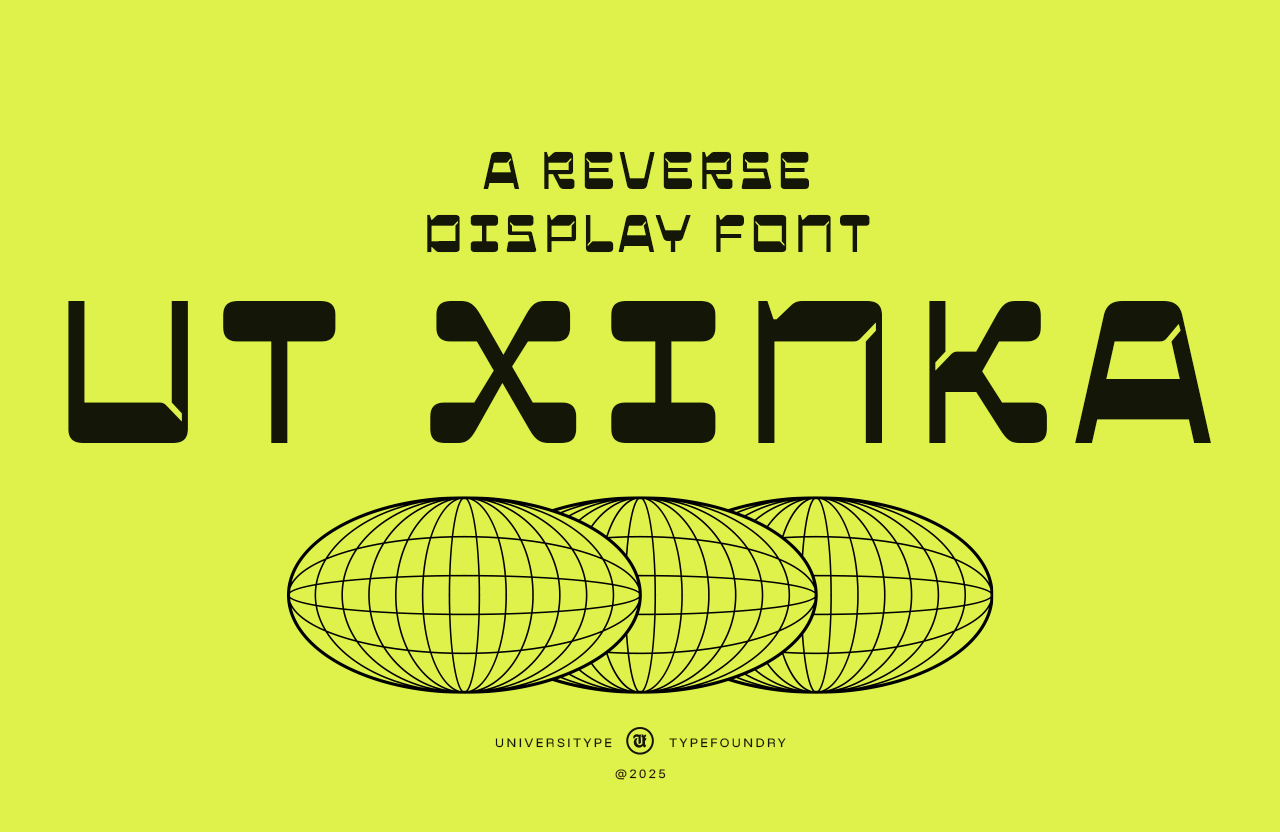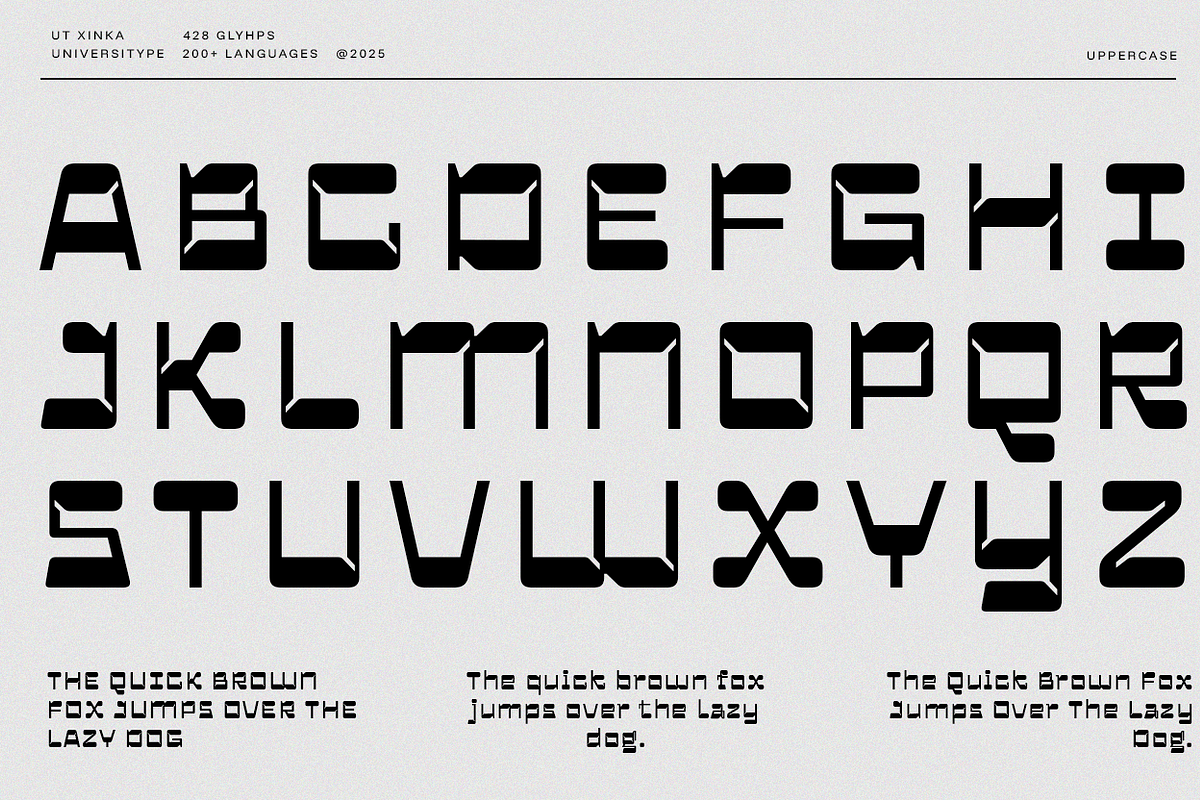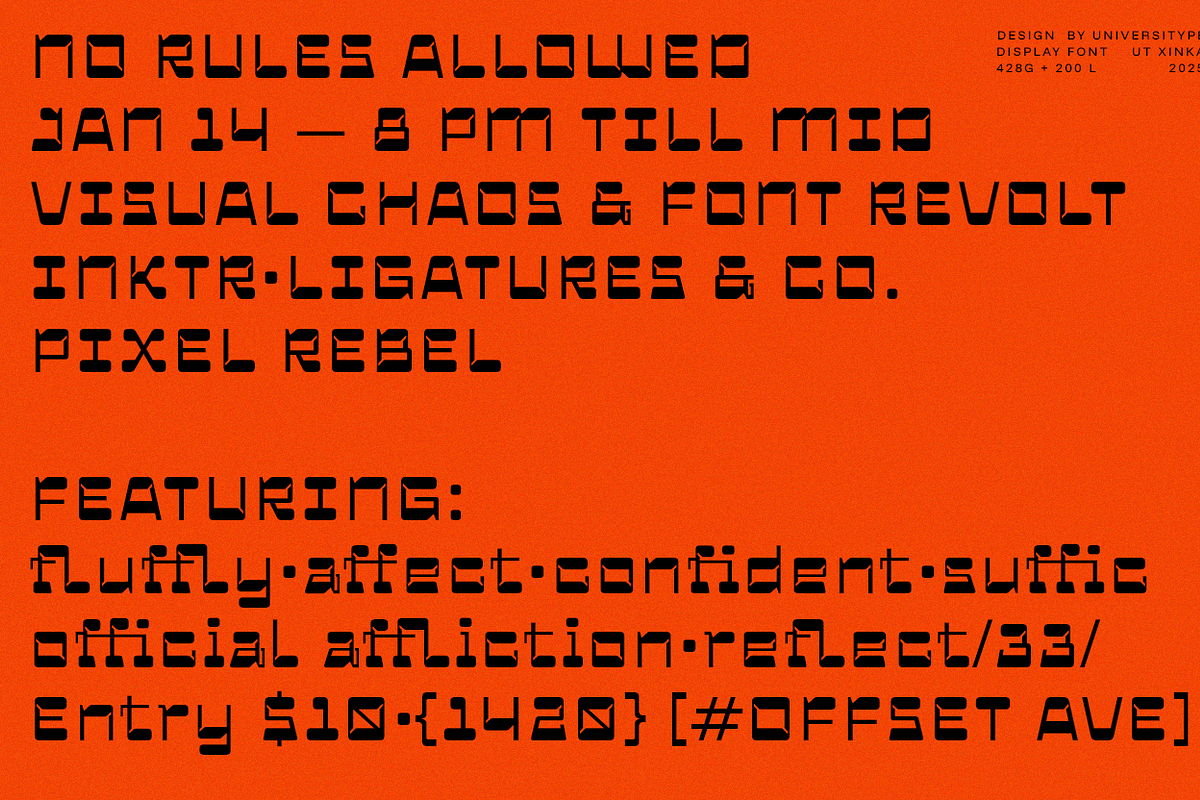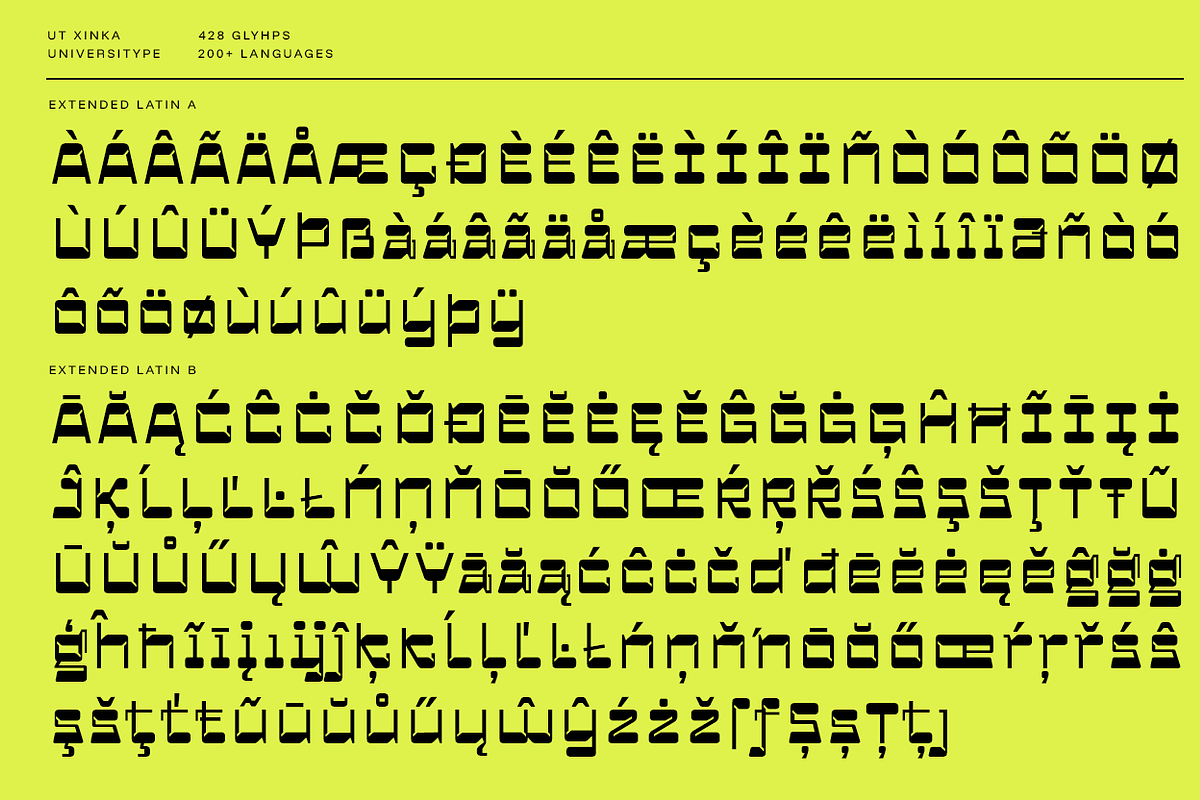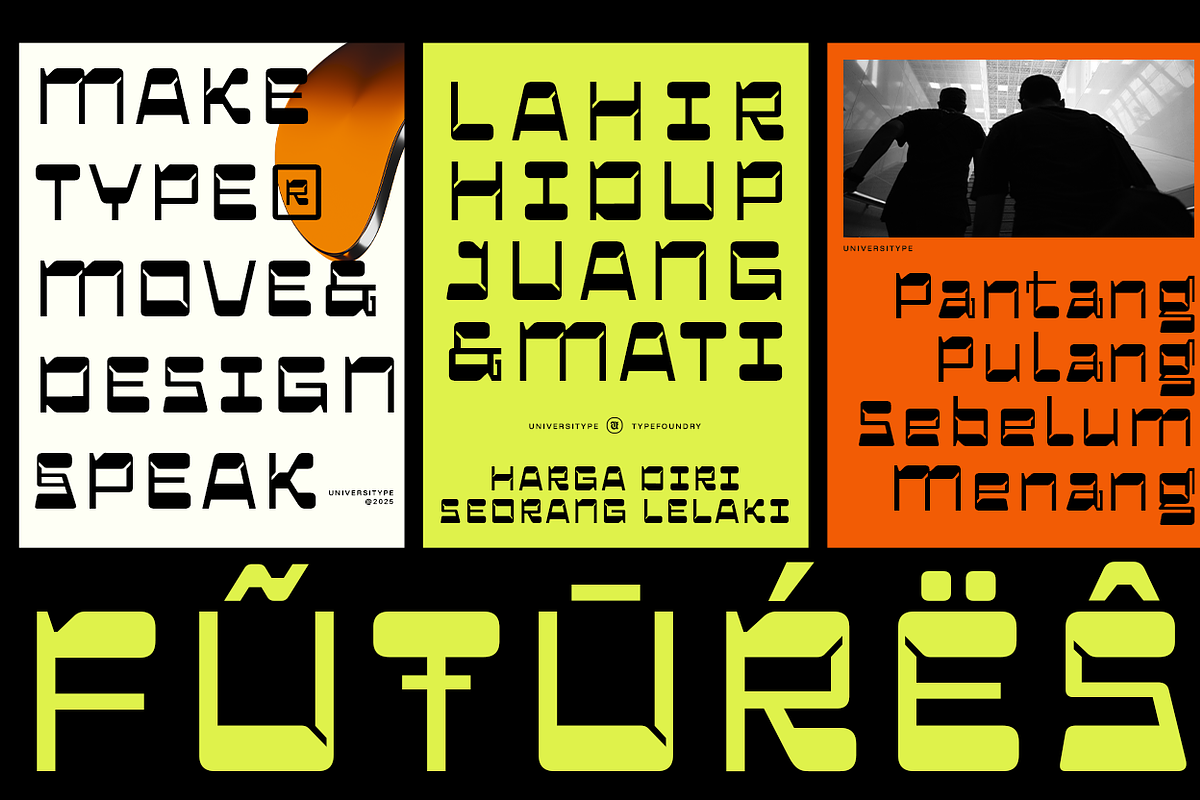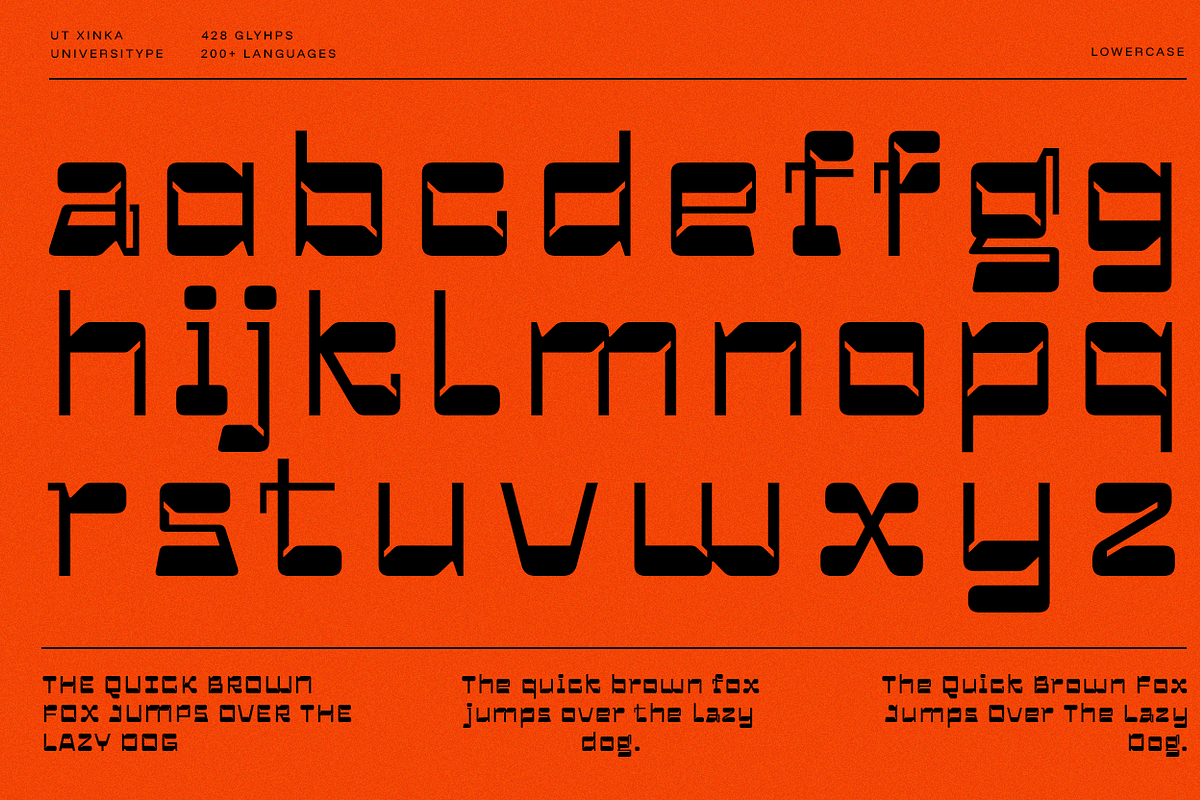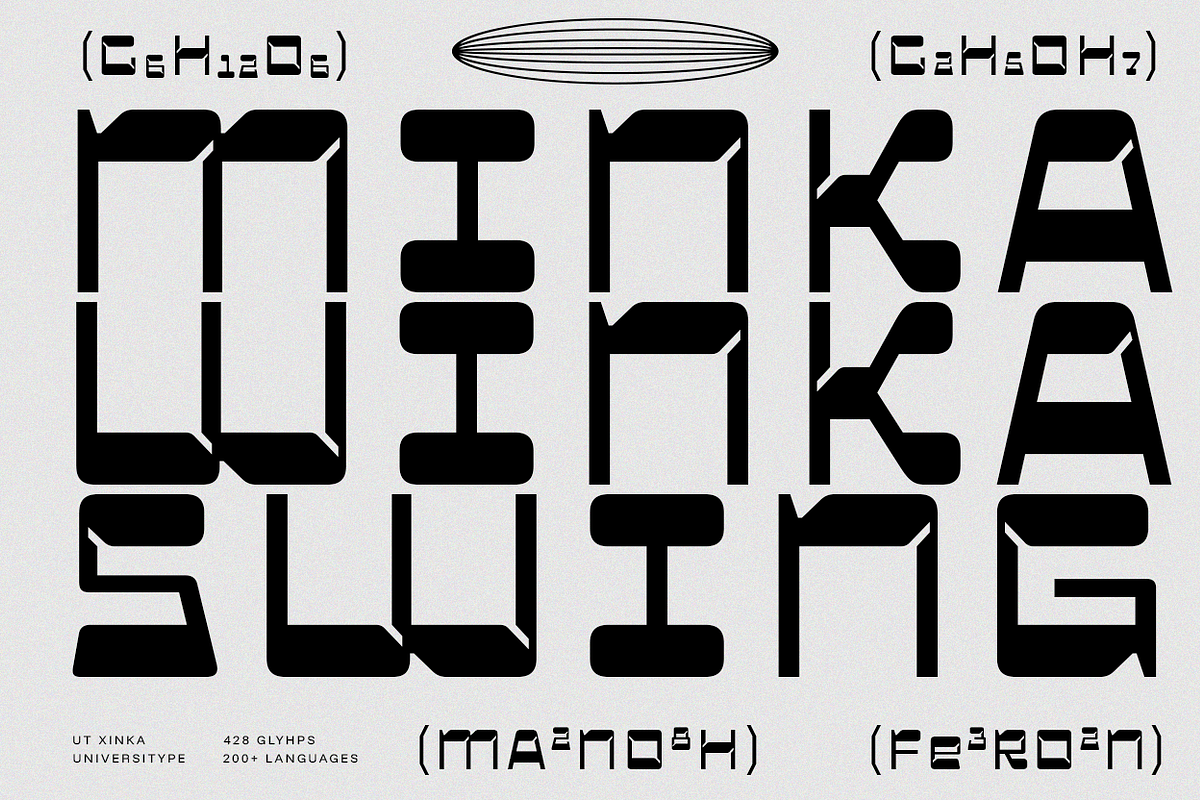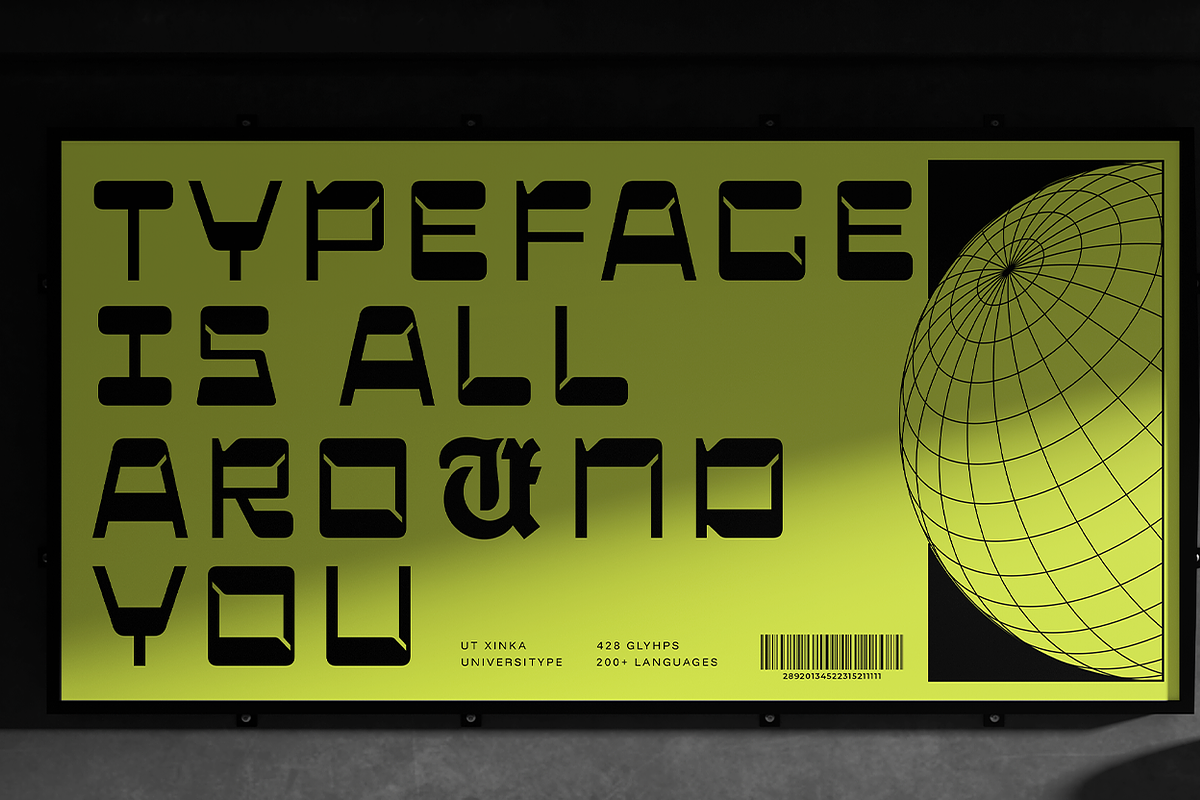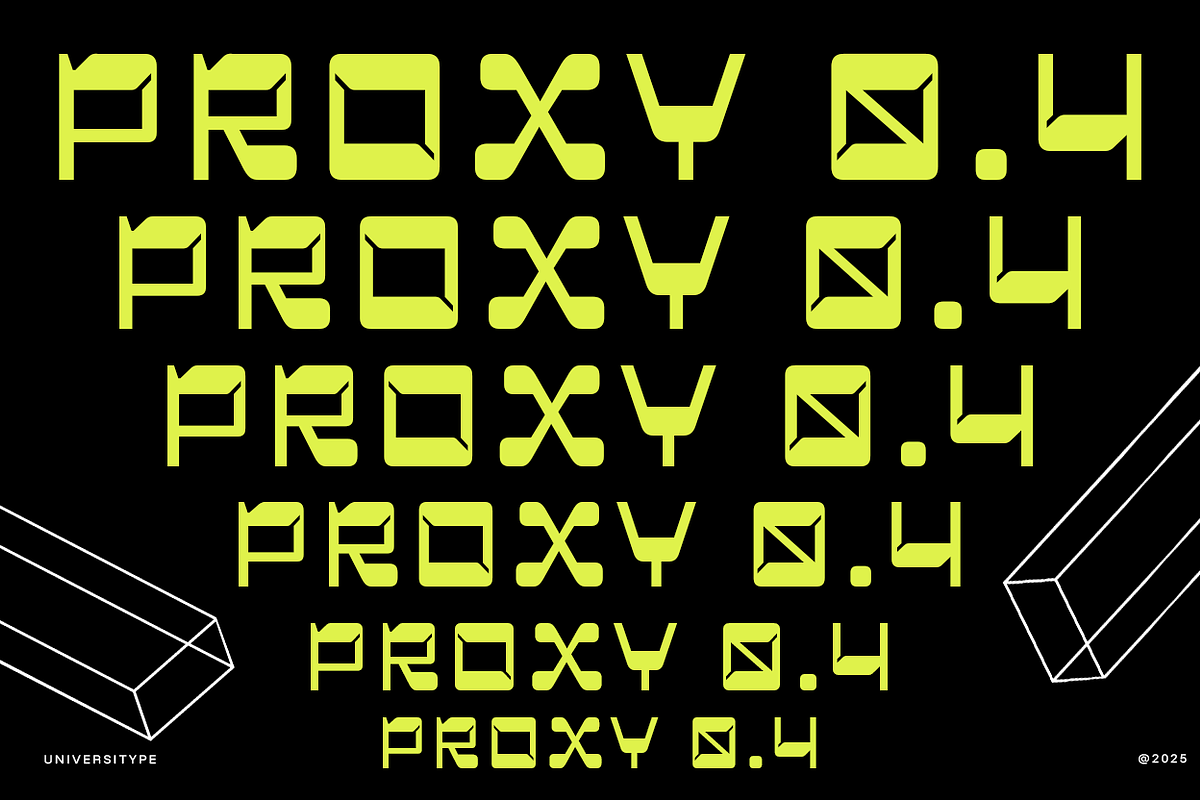
UT Xinka - A Reverse Display Font
UT Xinka brings a fresh reverse-contrast twist to display typography. Its chunky shapes, angled cuts, and smooth curves give it a futuristic yet friendly feel — perfect for designers who love expressive, experimental lettering. With 300+ glyphs, stylistic alternates, complete numerals, ligatures, and extended Latin support, UT Xinka is ready for posters, branding, album covers, gaming interfaces, and anything that needs strong visual character.